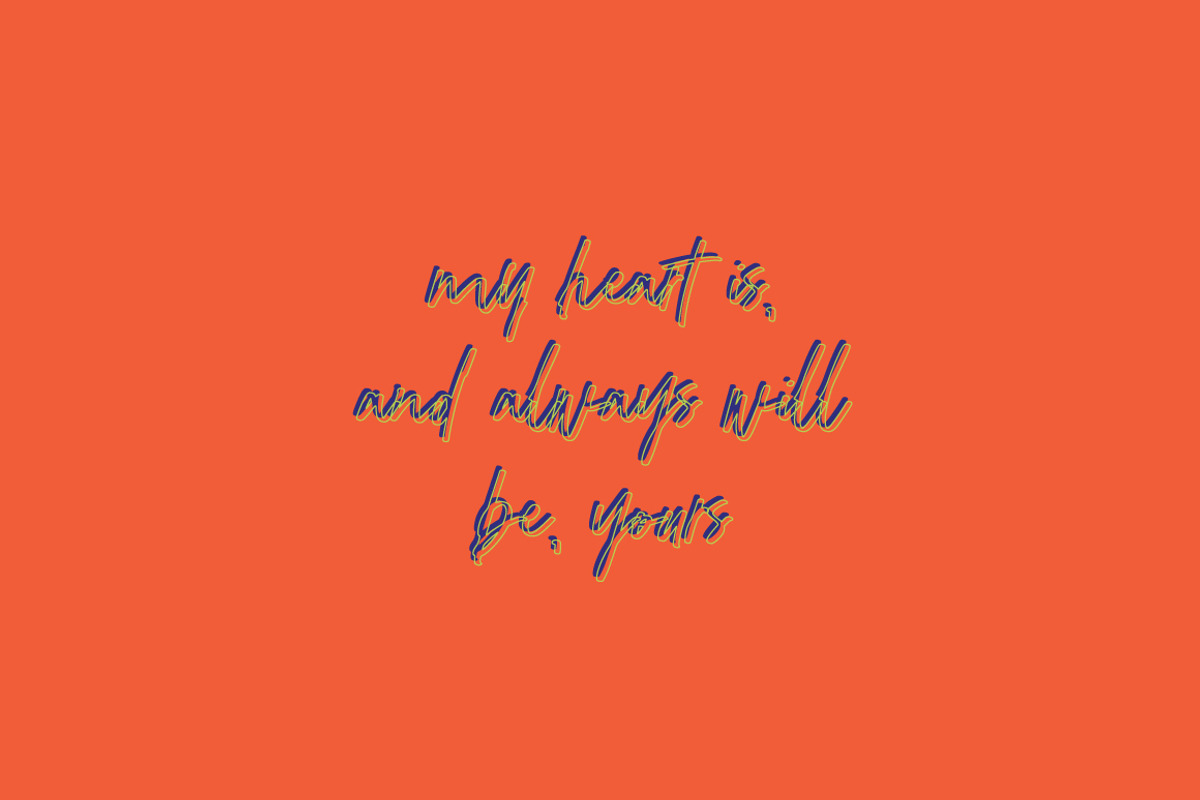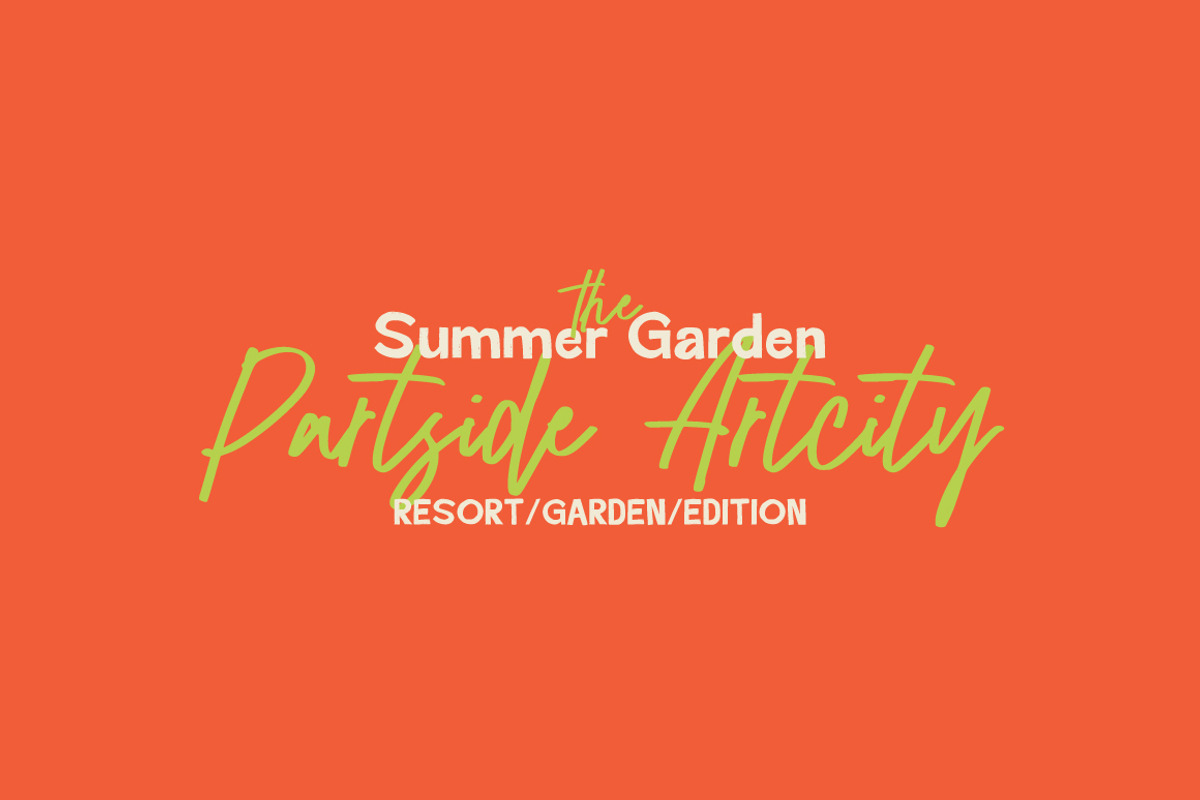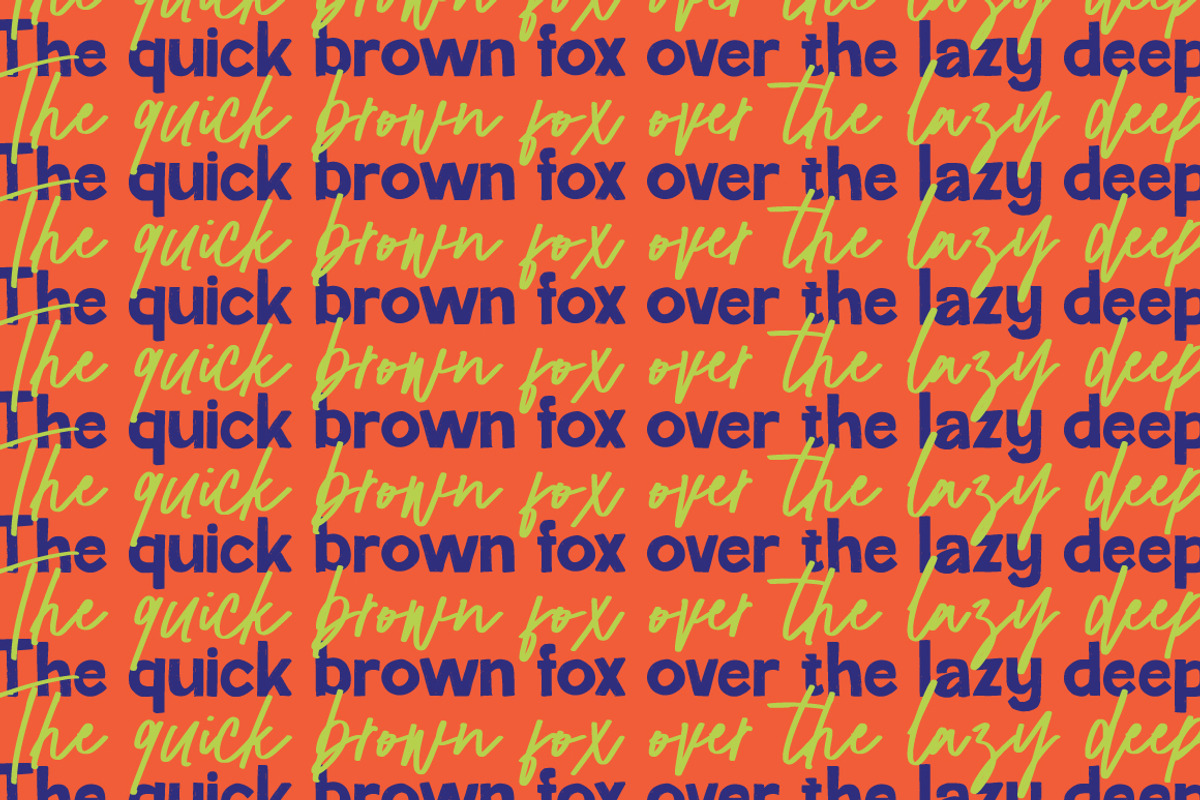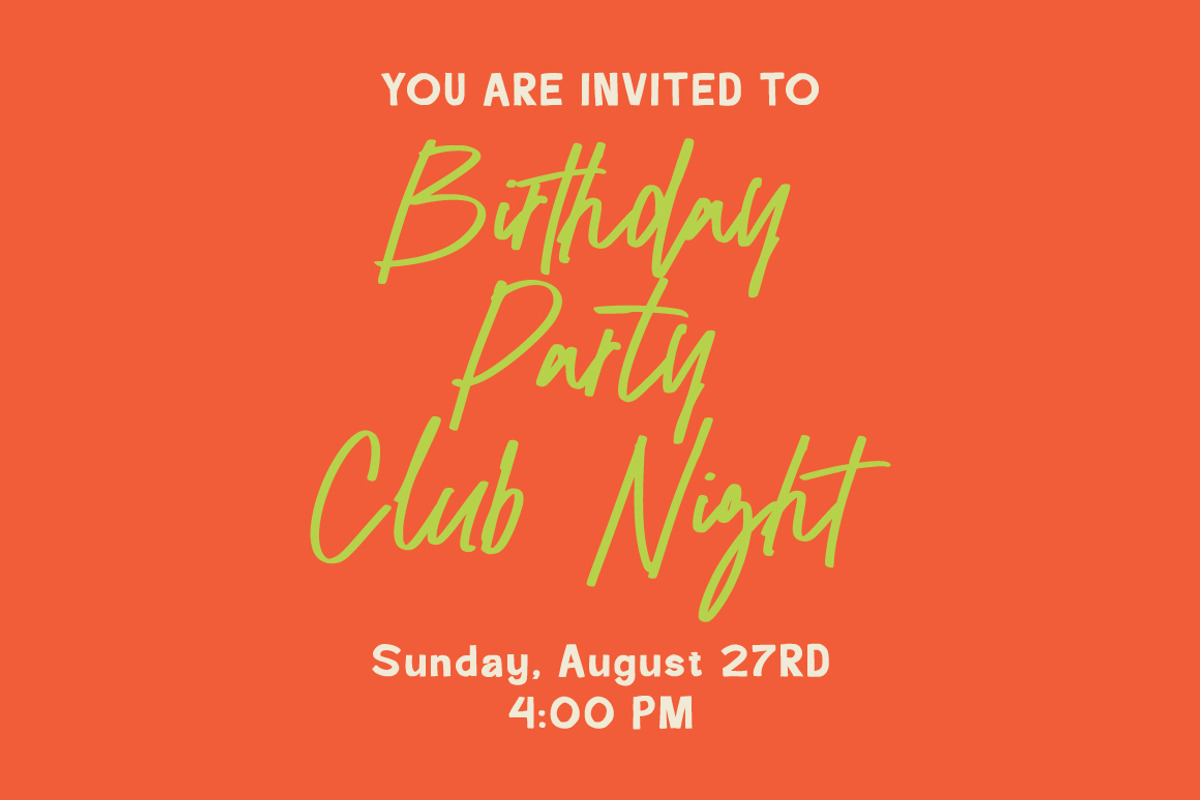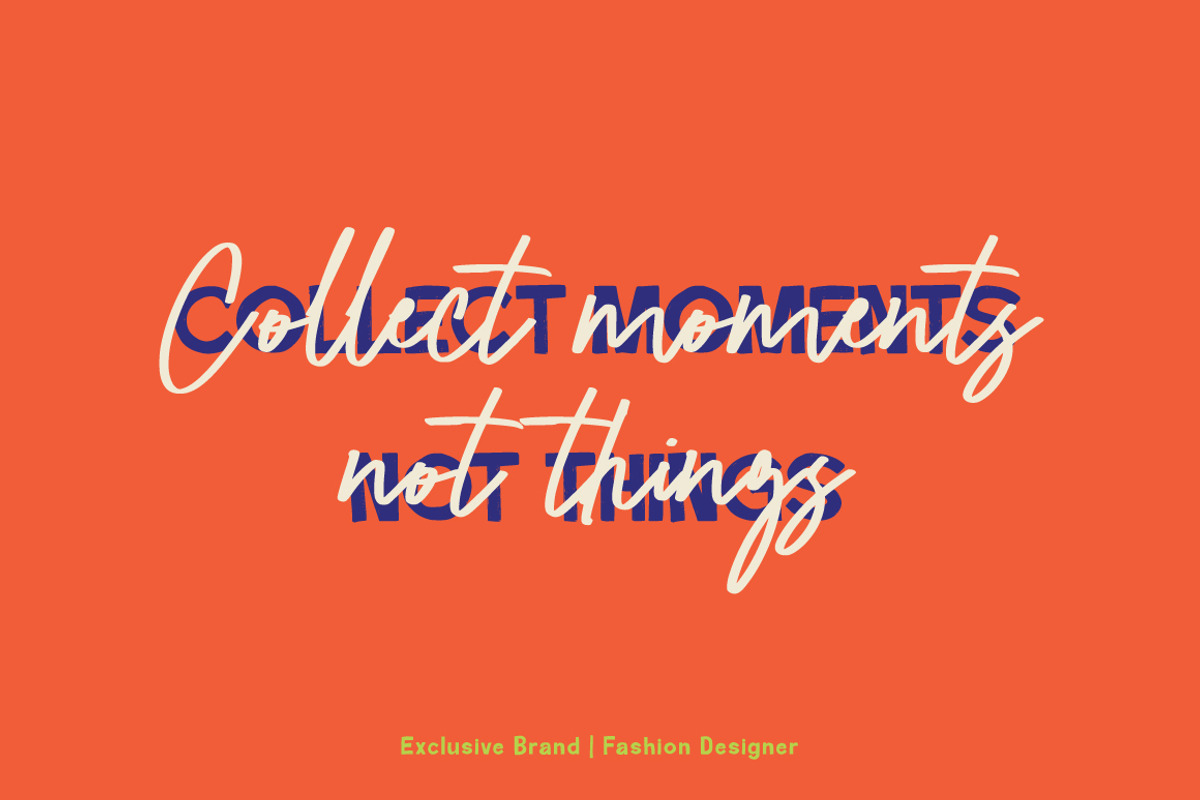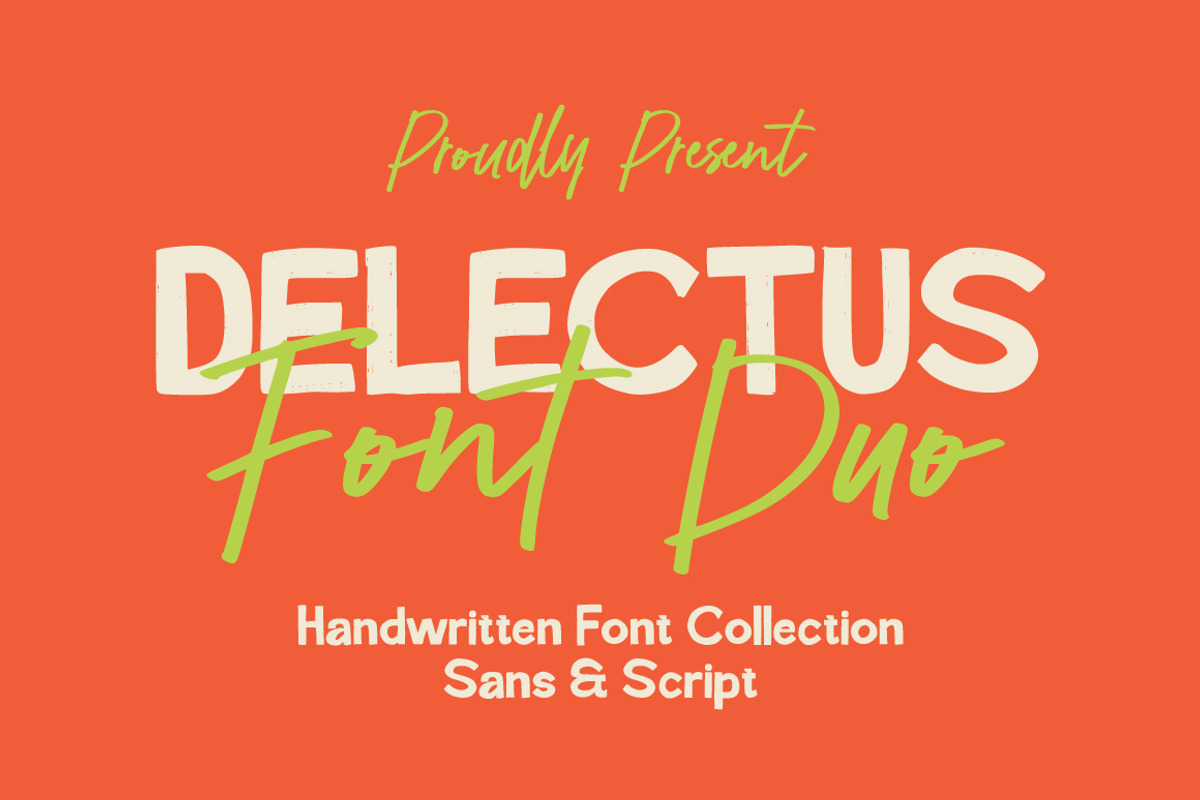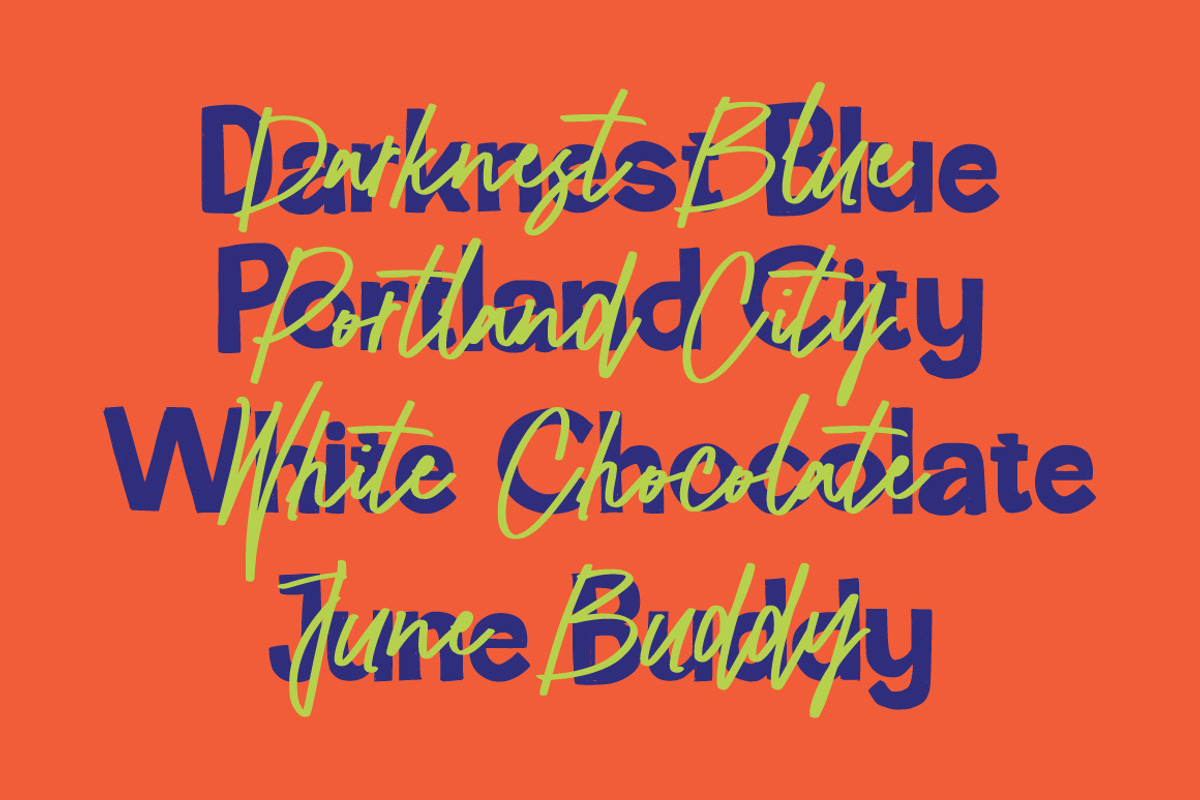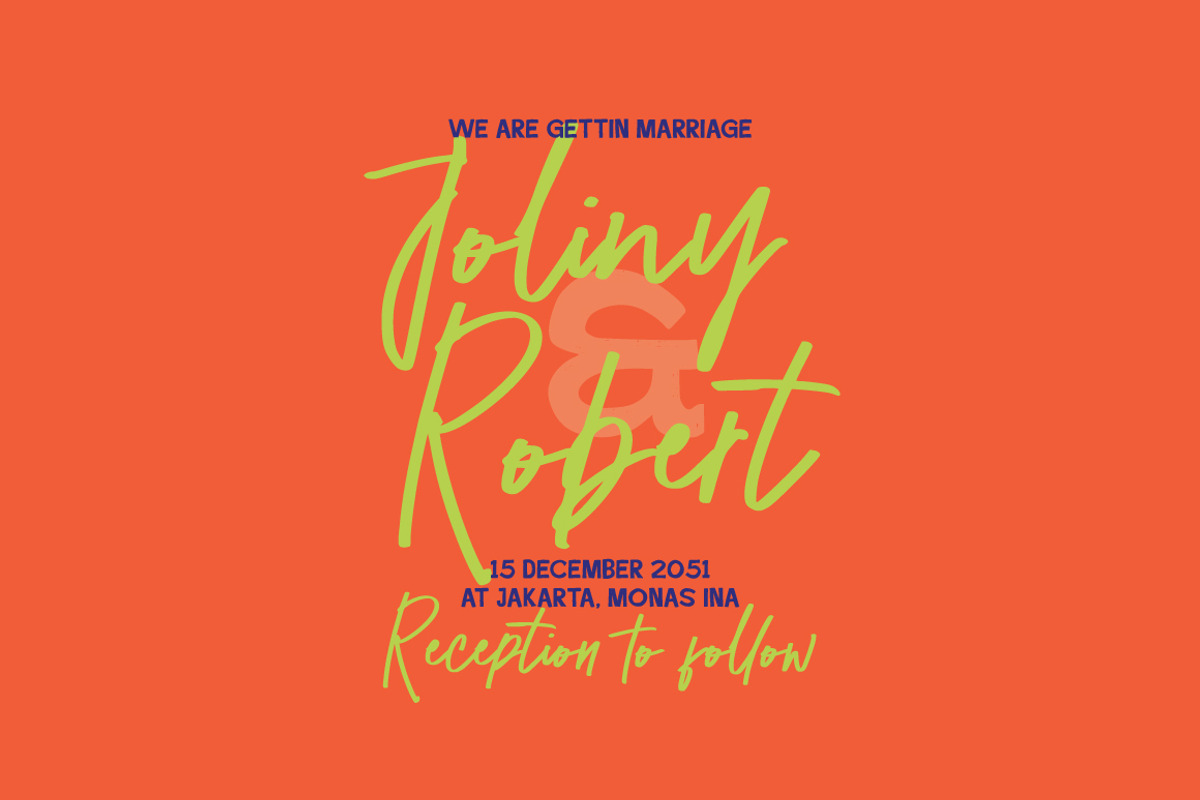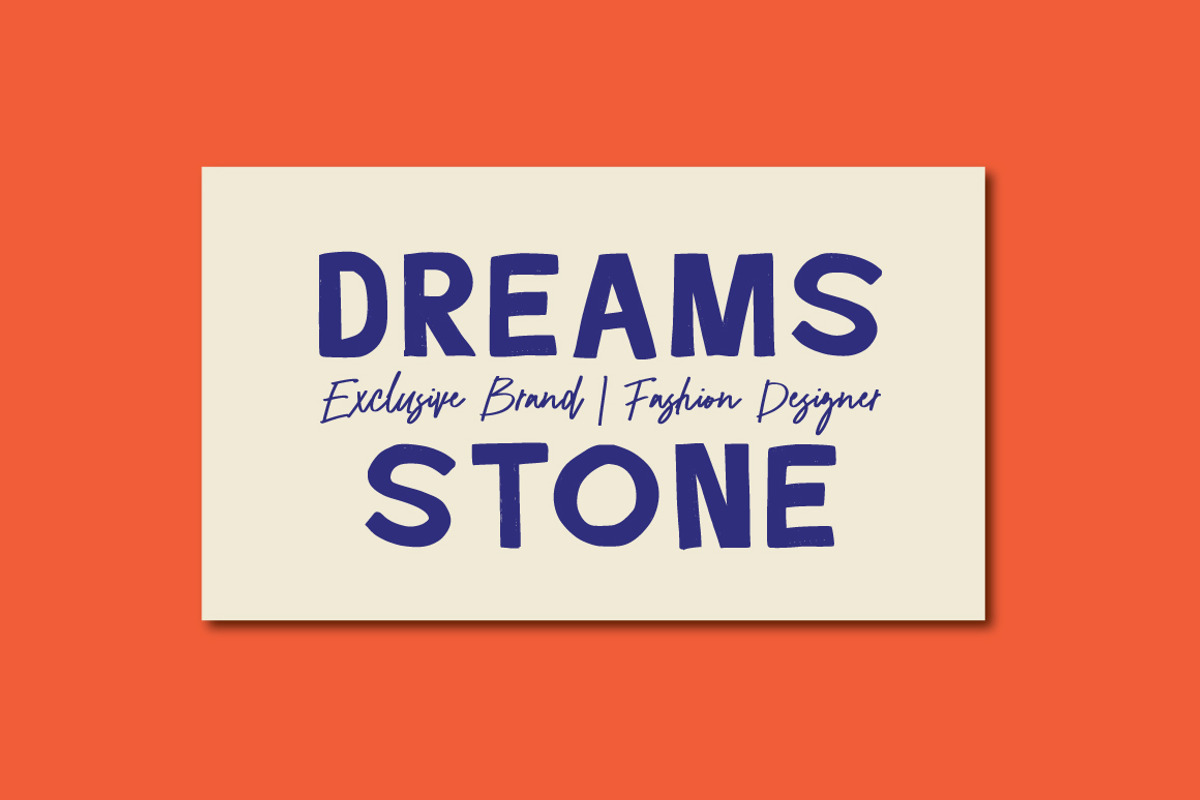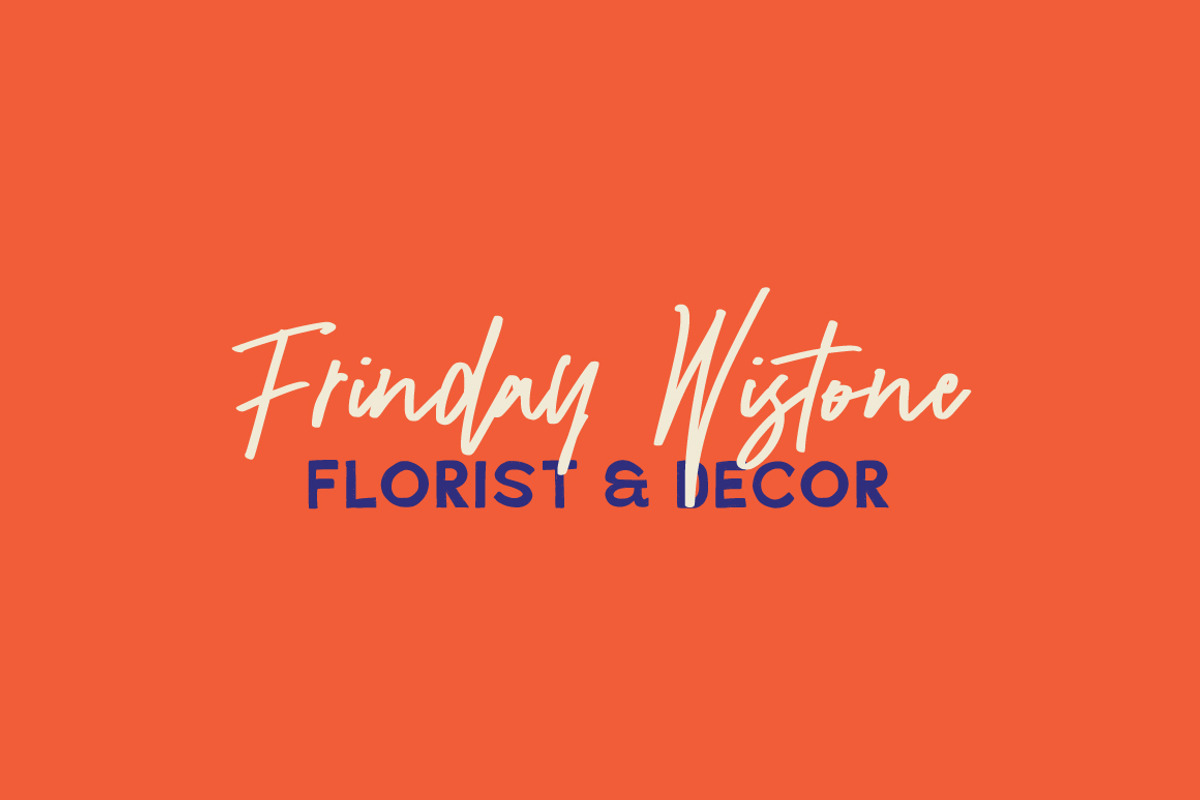
Delectus - Signature Font Duo
Delectus Font Duo – Handwritten Sans & Script Collection
Meet Delectus Font Duo, a perfectly paired combination of a bold, handcrafted sans-serif and an expressive signature script. Designed to work seamlessly together, this font pair brings warmth, playfulness, and authentic hand-drawn charm to any visual project.
The structured yet organic sans-serif offers fantastic legibility for headers and titles, while the fluid handwritten script adds an effortless touch of personality. Whether layered together or used independently, Delectus provides endless versatility for modern typography.
Delectus Signature Font Duo Features :
Uppercase & Lowercase International Languange & Symbols Support Punctuation & Number PUA Unicode Range Standard Ligatures Discretionary Ligatures Stylistic Alternates Stylistic Set.
Delectus Signature Font Duo was created for designers, business owners, and creators who want to create a classy and memorable visual identity.